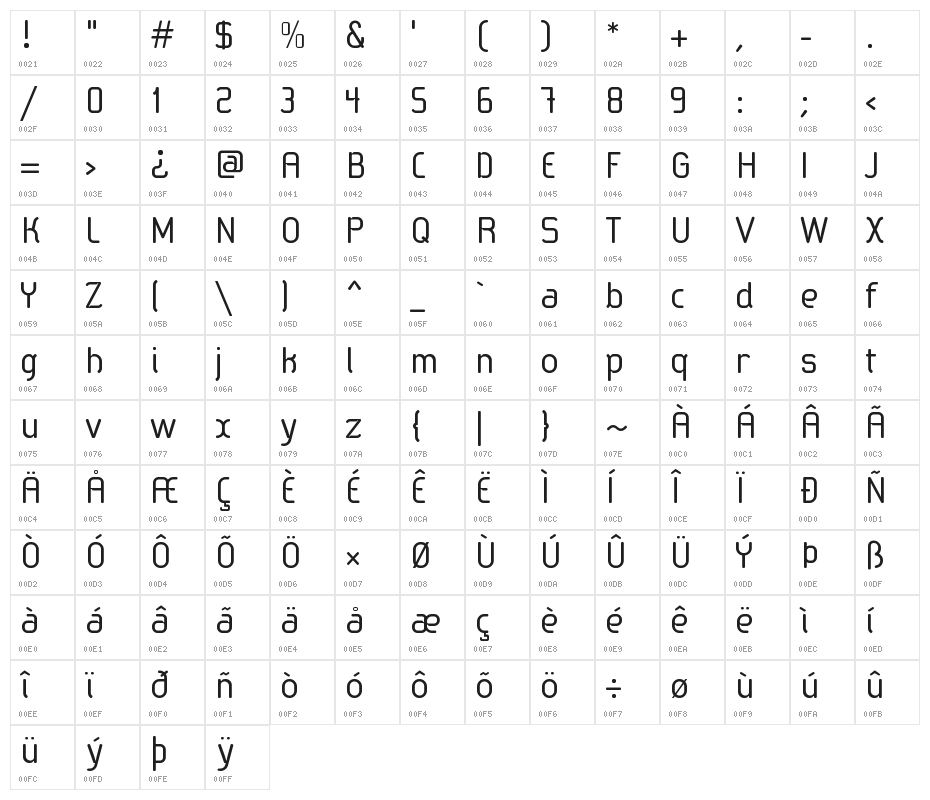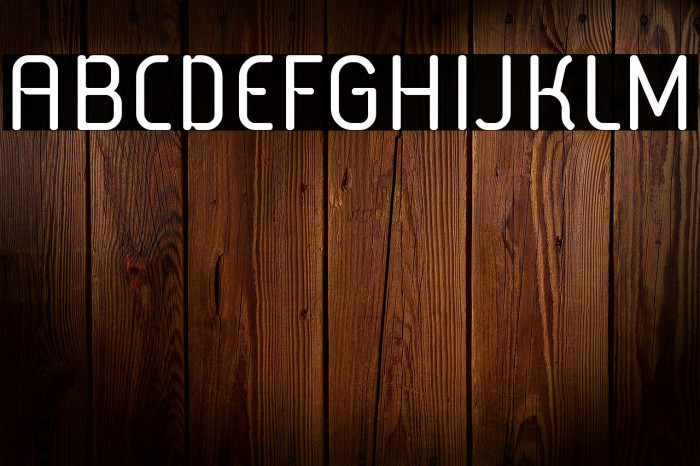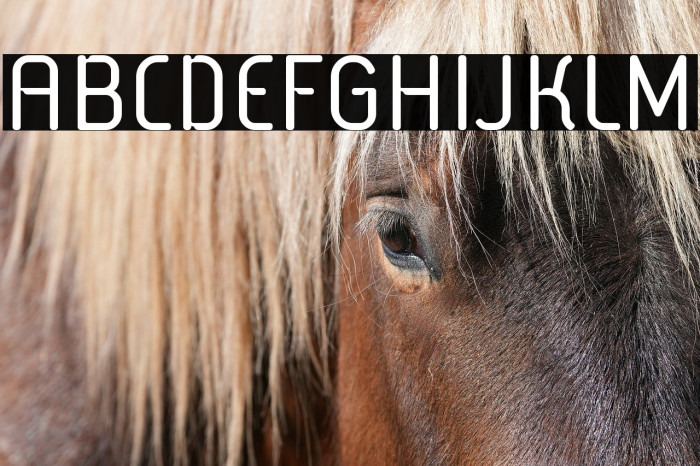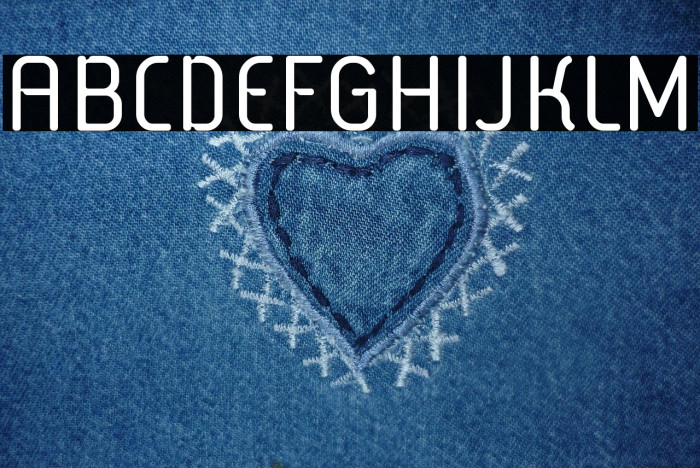
SabaticaRegular Font
SabaticaRegular Description
This font features a modern, geometric design with rounded edges and a clean, streamlined appearance. The characters are evenly spaced, providing a balanced and harmonious look. The uppercase letters are bold and assertive, while the lowercase letters maintain a consistent style with slightly softer curves. Numbers are clear and legible, making them suitable for various applications. The special characters are designed to complement the overall aesthetic, ensuring versatility in usage. This font is ideal for projects that require a contemporary and professional look.
| Use Case | Headlines, Body text, Logos |
| Proposed Projects | Ideal for branding, digital interfaces, advertising, and editorial design. |